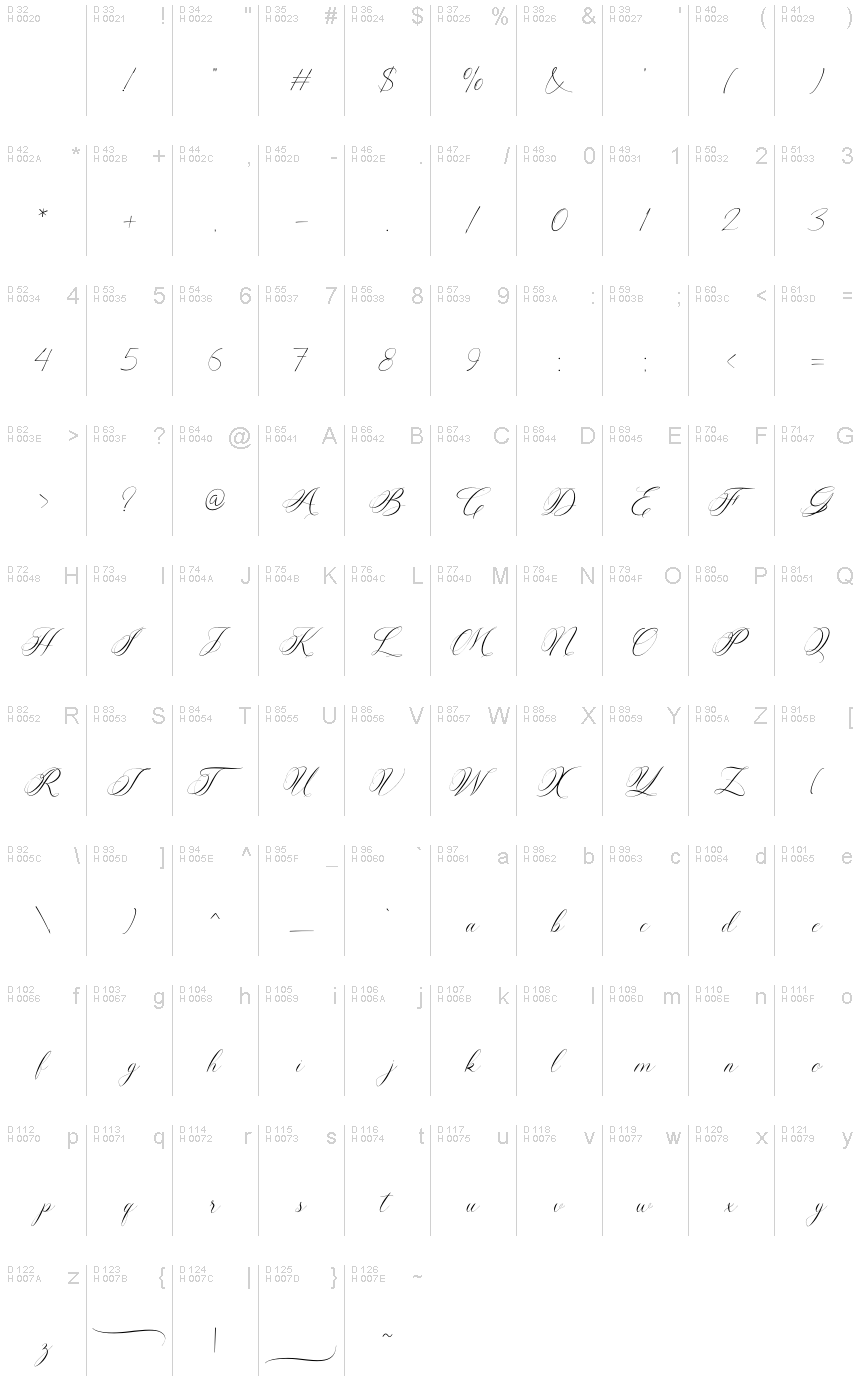
Leva Blackshear
Leva Blackshear emerges from the creative mind of Winarko, offering a calligraphy font that marries elegance with a whisper of whimsy. With its light weight, this font flows effortlessly across the page, reminiscent of fine penmanship and timeless sophistication. The graceful curves and delicate strokes lend an air of intimacy to each character, making it perfectly suited for invitations, branding, and personalized stationery.
The aesthetic appeal of Leva Blackshear lies in its ability to capture the charm of traditional calligraphy while maintaining readability. Its style is versatile enough to enhance various creative projects—from wedding designs to literary covers—bringing a touch of bespoke beauty wherever it's applied. Embrace the allure of Leva Blackshear for your next endeavor and let its unique characteristics leave an indelible impression.